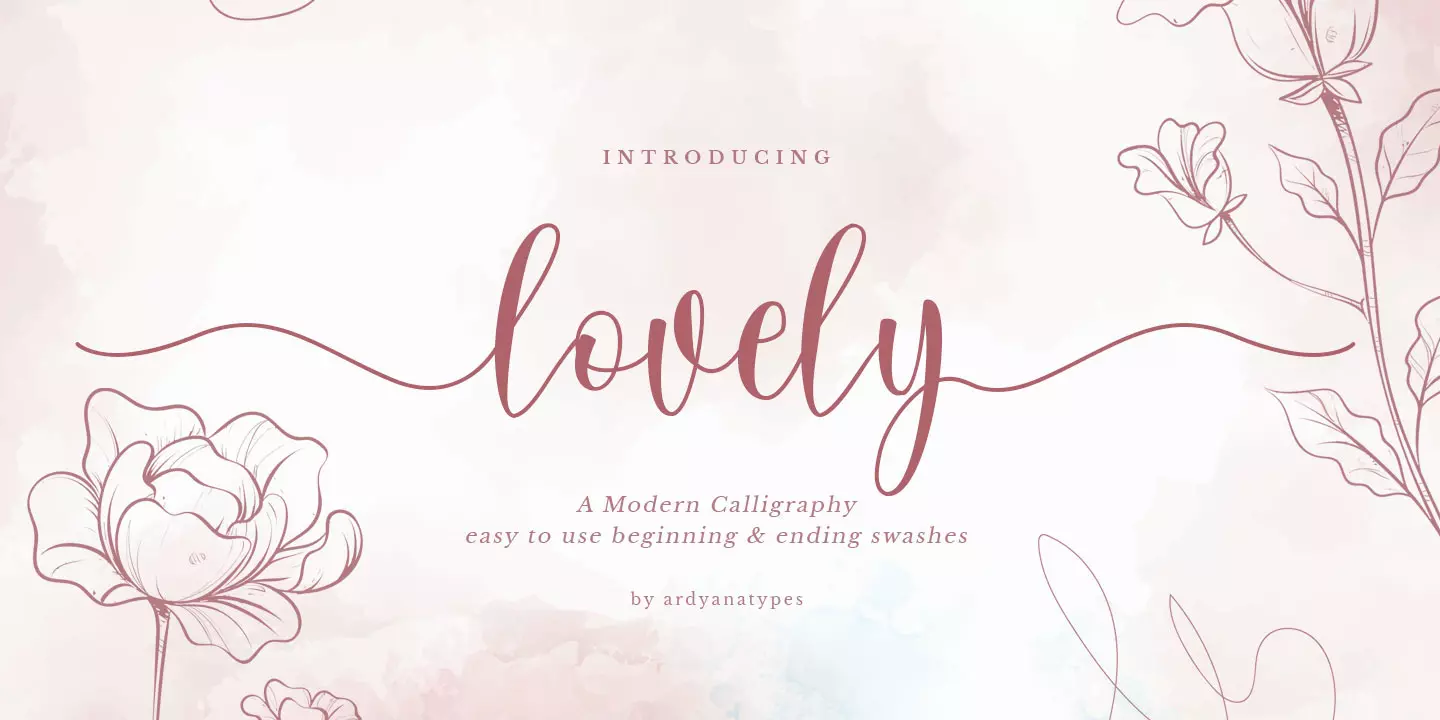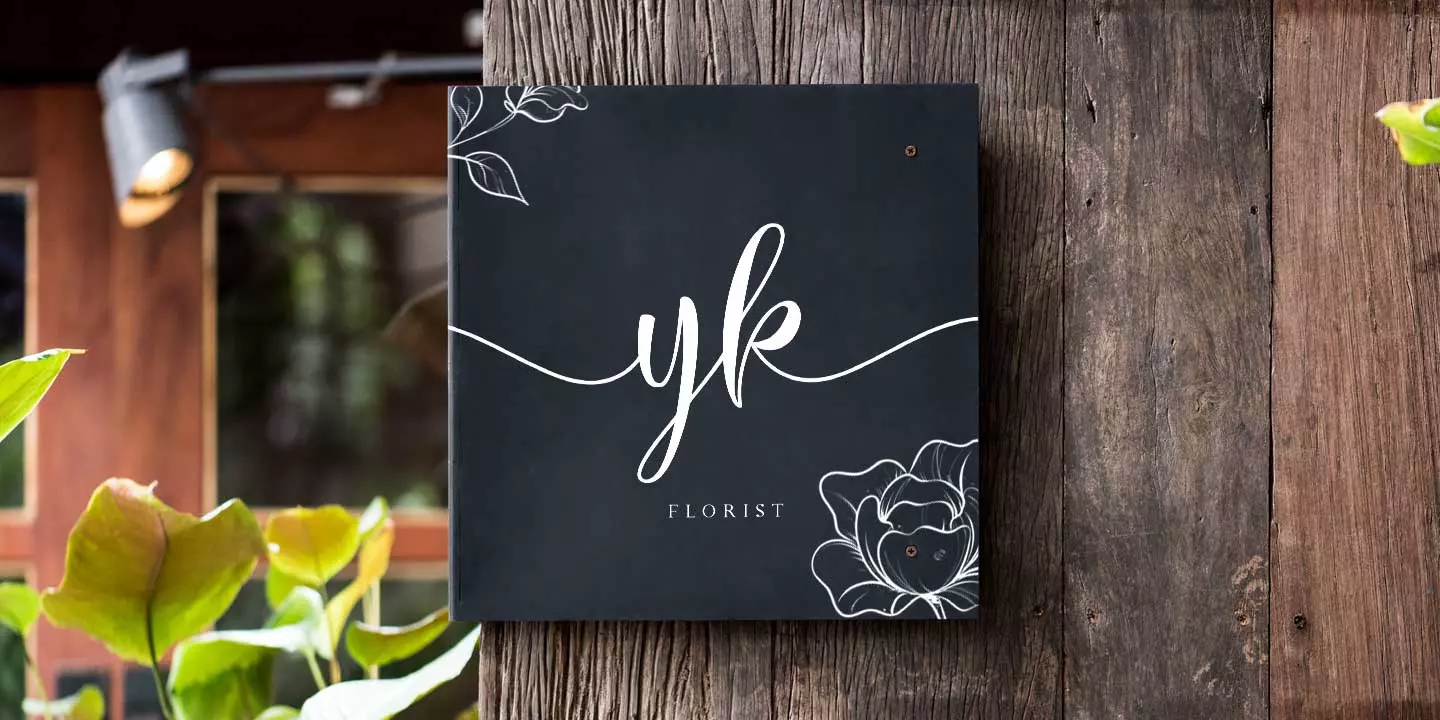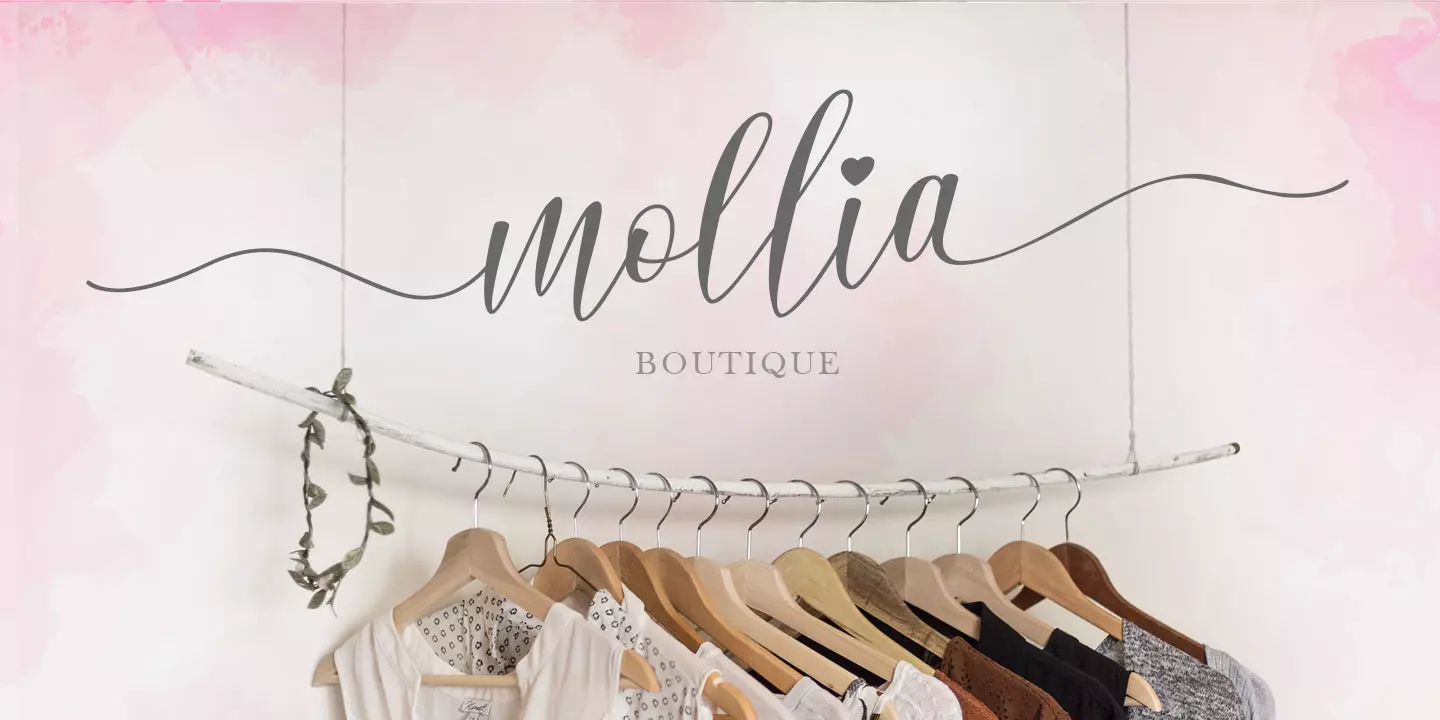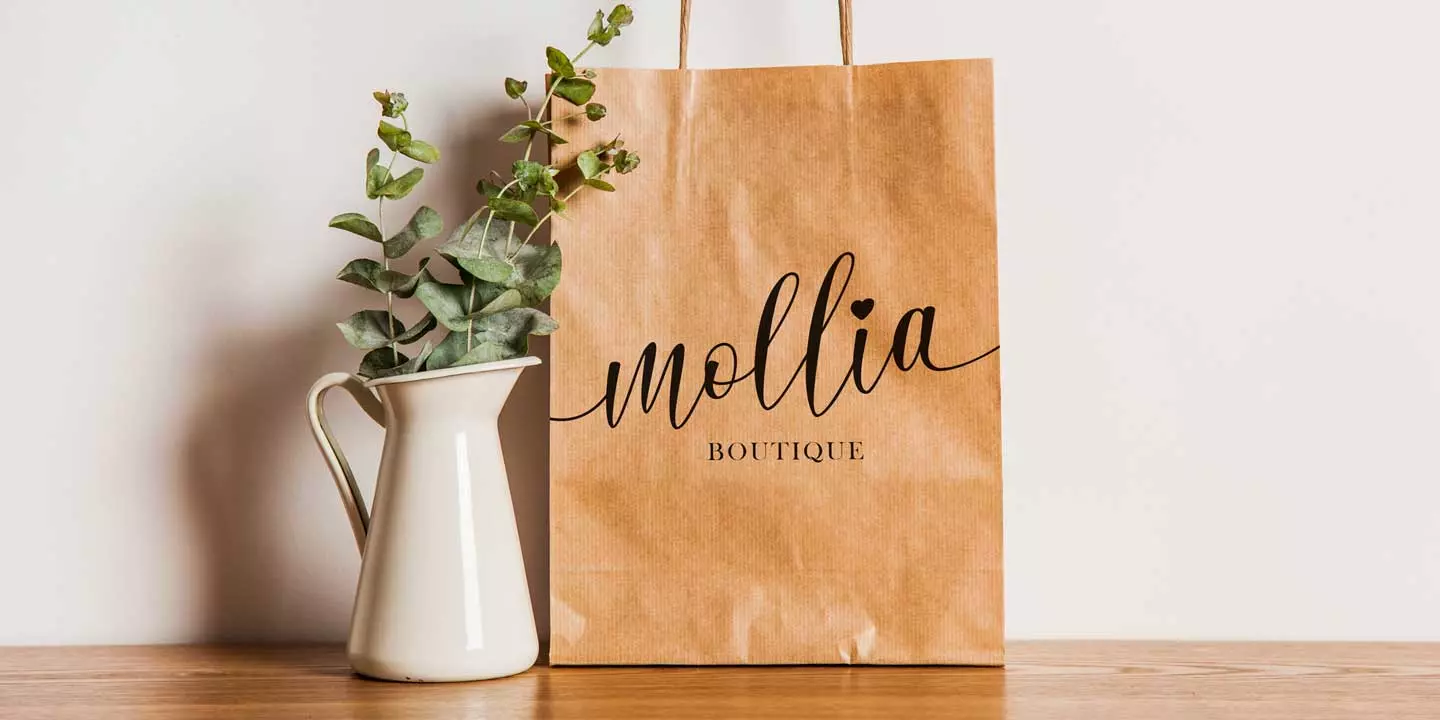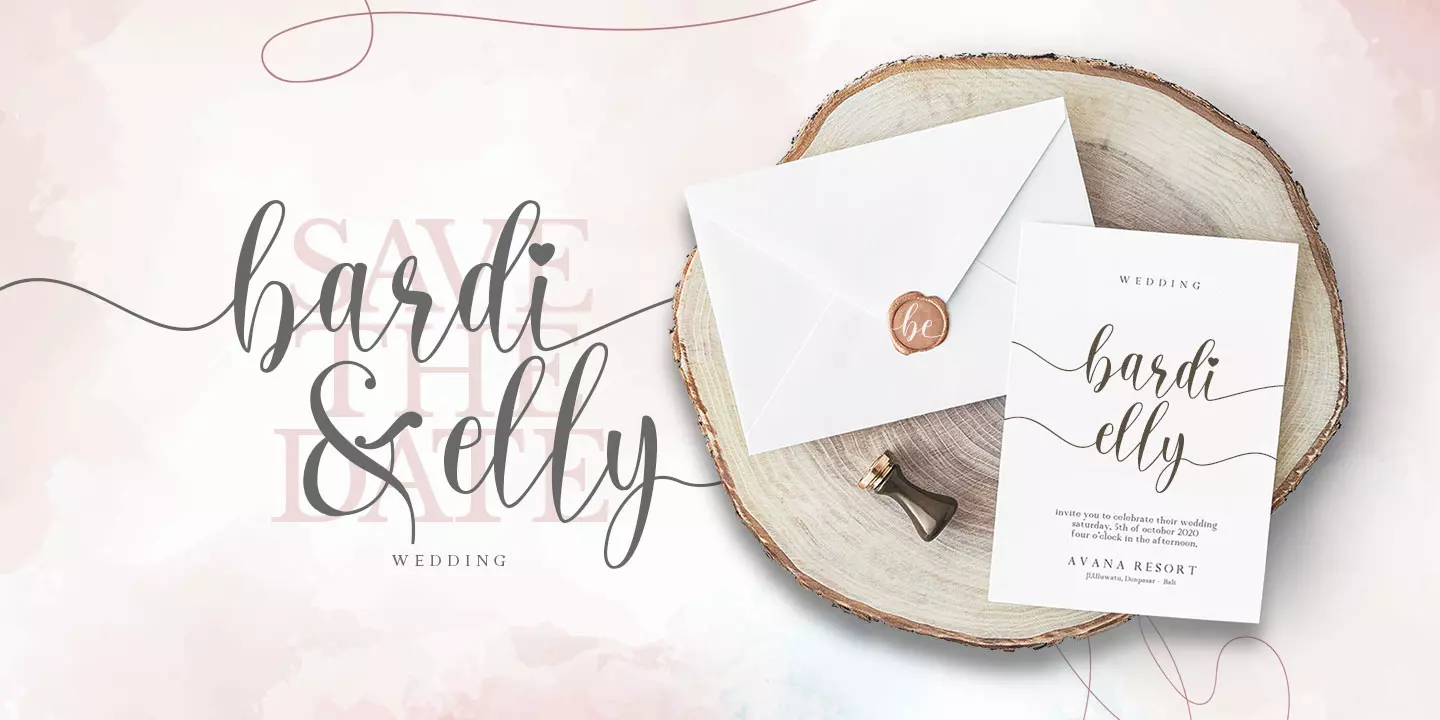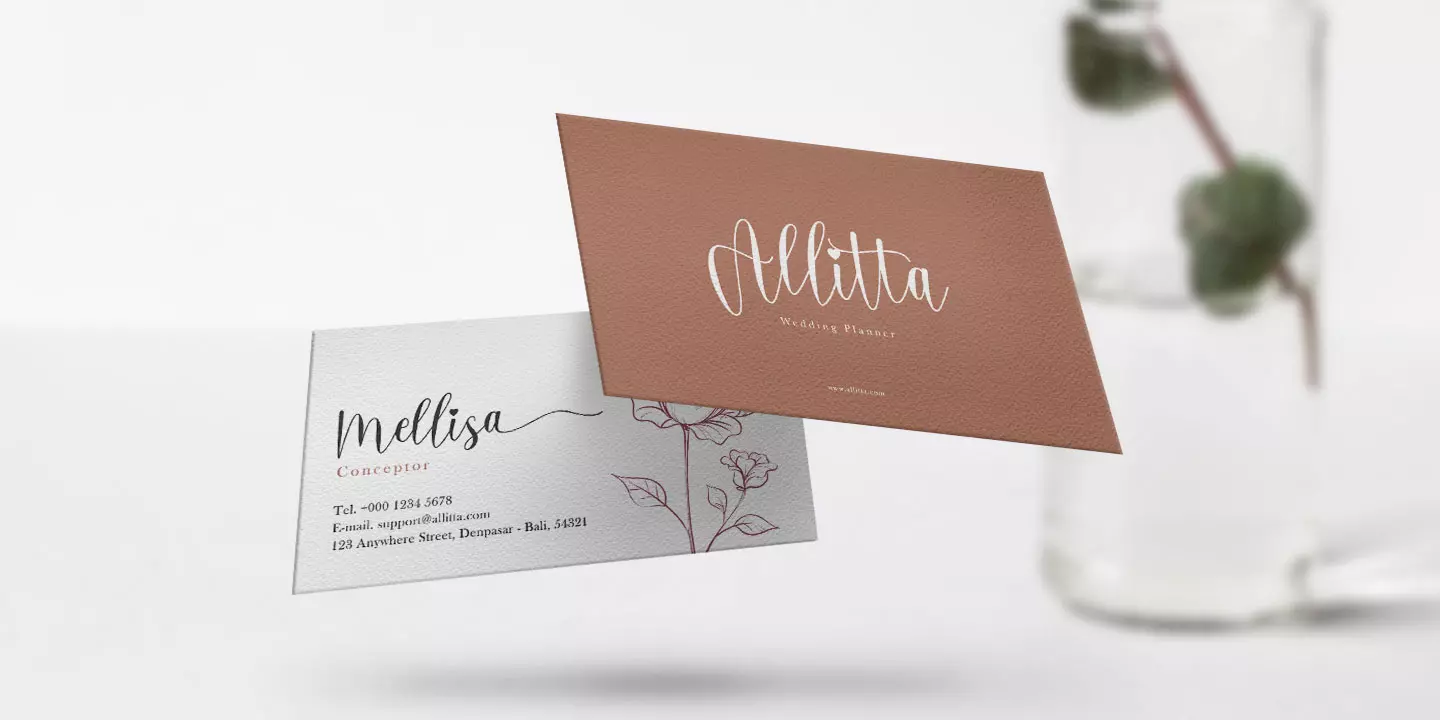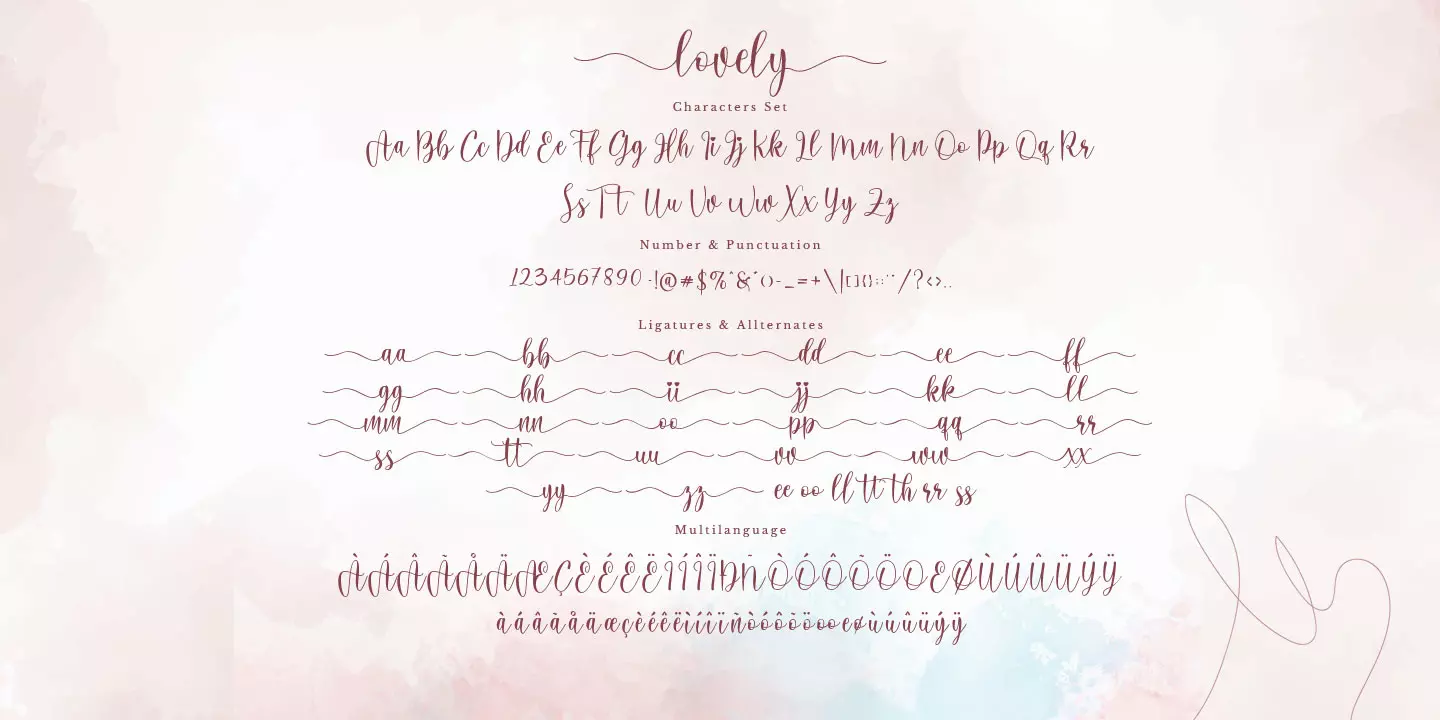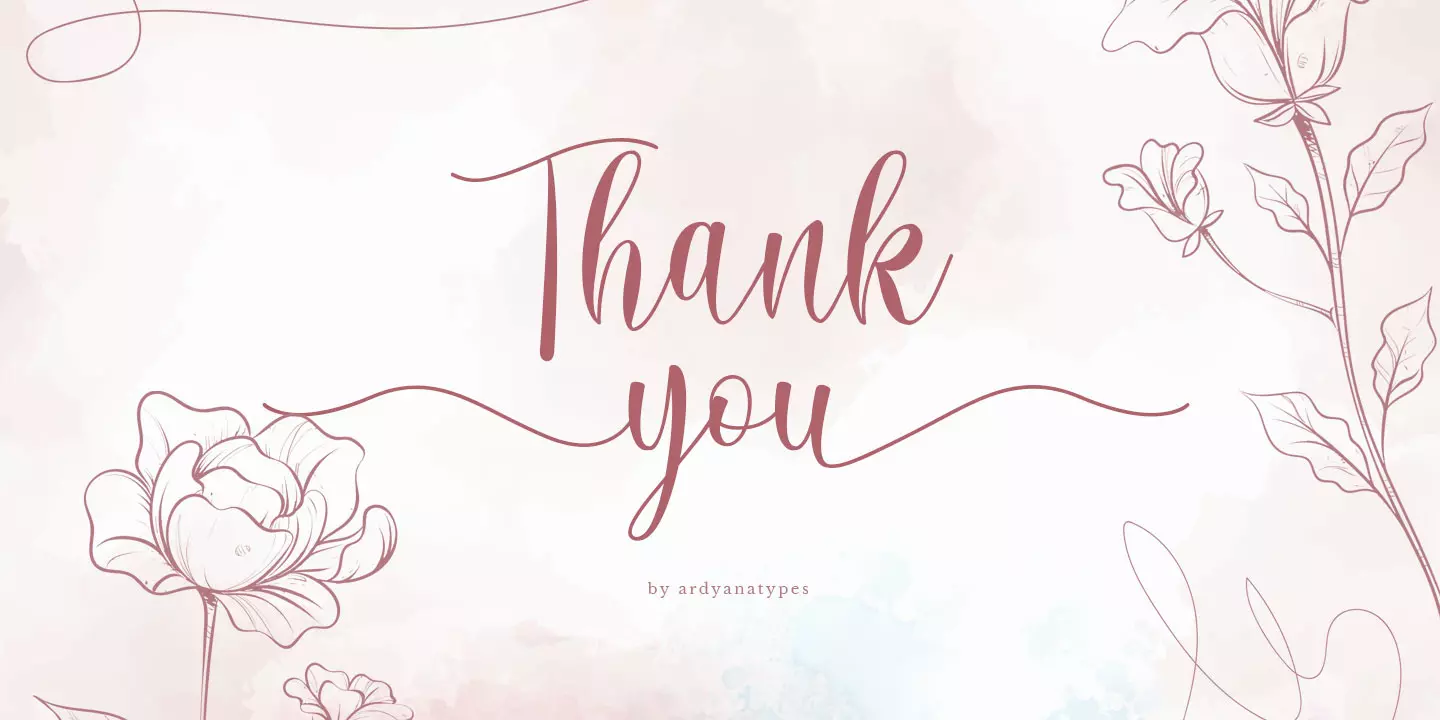
Lovely
2 Styles
Lovely is a font which created with special touch to giving beautiful and attractive look. Type of modern calligraphy also included in Lovely, it’s very suitable if applied to every design such as poster designs, signatures, logos, quotes, album covers, business cards, product designs, and many other design projects.
Lovely has 2 different fonts which are tails for decoration. it will be very easy to use. For example to use the tail on the begining of the word, you only need to change the family font to “Lovely Swashes Tail”
example :
If you want to type “lovely” using the front tail swash and back tail swash, select the font “lovely swashes tail” then press (Shift (L) then the letter L changes to front tail swash. Then choose “lovely script font” to use it normally and then type “ovel” and then select again “lovely swashes tail “and type (y) then the letter (y) will change to rear tail swash.
to display TT ligatures with swashes using “lovely script”
type (bracketleft) example “[+ tt” = Front tail swash. and (bracketright) example “tt +]” = rear tail swash
basically this will be very easy to use
• ee ee
• oo oo
• rr rr
• ss ss
• th th
• [tt [tt
• tt] tt]